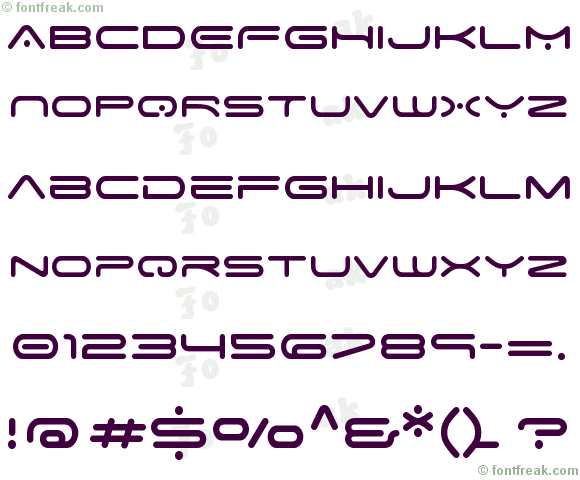
Space Age
The Space Age font by Justin Callaghan is a striking display typeface that captures the essence of futuristic design. As a decorative font, it features bold, geometric shapes that evoke a sense of adventure and innovation. The stroke weight is consistent, creating a solid presence, while the rounded edges lend a modern and approachable feel. With minimal contrast and spacious letterforms, the font ensures readability, making it an excellent choice for various applications.
This font is perfect for a range of creative projects. Its unique style makes it an ideal choice for movie posters, particularly in the sci-fi genre, where it can help set the tone for intergalactic themes. Additionally, the Space Age font is well-suited for branding small businesses that want to convey a contemporary and forward-thinking image. Graphic designers can also leverage this font in product packaging or promotional materials that aim to capture attention and spark curiosity. Content creators might find it useful for eye-catching social media graphics or website headers that need to stand out in a crowded digital landscape.